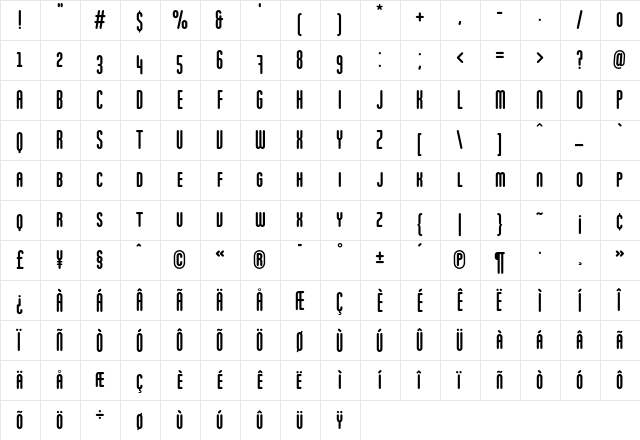
MartenCaps Regular Font Preview
MartenCaps Regular
MartenCaps Regular Font Details
Design Context for MartenCaps Typeface
MartenCaps takes a measured approach to typography — its balanced proportions and neutral character make it a reliable workhorse for both digital and print work.